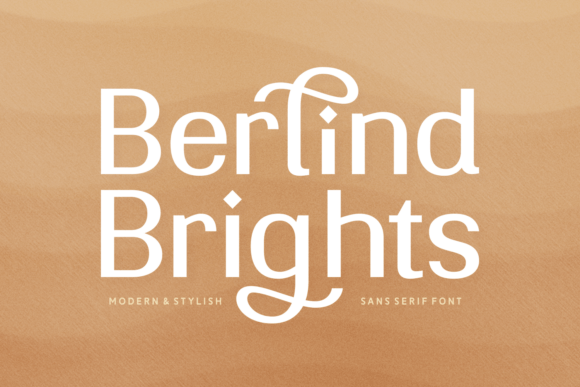
I still remember the countless hours I spent searching for the ideal font for a client’s branding project. The design brief called for something modern, elegant, and versatile – a font that could seamlessly transition from logos to social media posts. As I scrolled through font after font, I couldn’t help but feel like I was stuck in a never-ending loop of sameness. That was until I stumbled upon **Berlind Brights**, a game-changing sans serif font that has since become a staple in my design toolkit.
A First Impression: What Makes Berlind Brights Special
Berlind Brights is a masterclass in balancing clean minimalism with elegant flourishes. Its sleek lines and subtle decorative touches give it a refined personality that’s hard to ignore. This font is perfect for designers, crafters, and creative hobbyists looking to elevate their branding, logos, magazines, social media, and wedding invitations. With Berlind Brights, you can achieve a perfect blend of contemporary clarity and artistic charm.
• ✨ Clean and modern aesthetic: Berlind Brights boasts a sleek, sophisticated look that’s perfect for modern designs.
• ✅ Elegant flourishes: The subtle decorative touches add a touch of sophistication to any design.
• 💡 Versatility: This font can be used for a wide range of projects, from branding and logos to social media and wedding invitations.
• 📈 Scalability: Berlind Brights remains legible and stylish even at small font sizes.
• 🤔 Limited character set: While Berlind Brights has a wide range of characters, it may not have every special character or glyph you need.
The Story Behind Berlind Brights: Designer Inspiration
Berlind Brights was designed by a team of typographers who sought to create a font that would blend modern minimalism with elegant flourishes. Inspired by the urban landscape and the world of high-end fashion, they crafted a font that would be both versatile and stylish. With Berlind Brights, they aimed to create a font that would be perfect for designers, crafters, and creative hobbyists looking to elevate their designs.
Q: What is Berlind Brights?
A: Berlind Brights is a modern and stylish sans serif font that combines clean minimalism with elegant flourishes.
Q: What can I use Berlind Brights for?
A: Berlind Brights is perfect for branding, logos, magazines, social media, and wedding invitations.
Q: Is Berlind Brights easy to read?
A: Yes, Berlind Brights is designed to be highly legible, even at small font sizes.
Q: Does Berlind Brights support OpenType features?
A: Yes, Berlind Brights supports OpenType features, including stylistic alternates and glyphs.